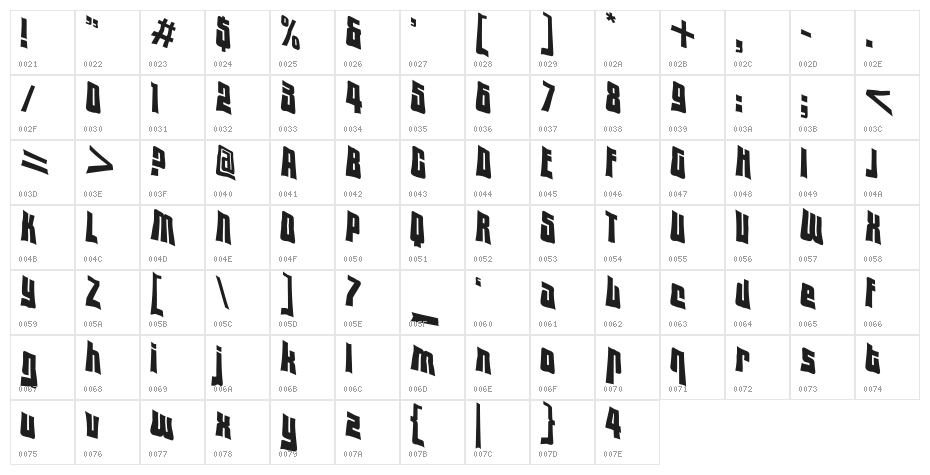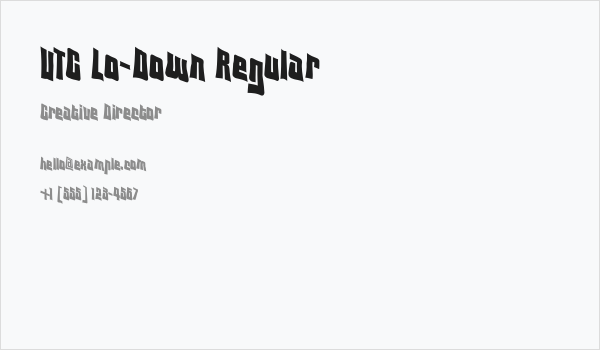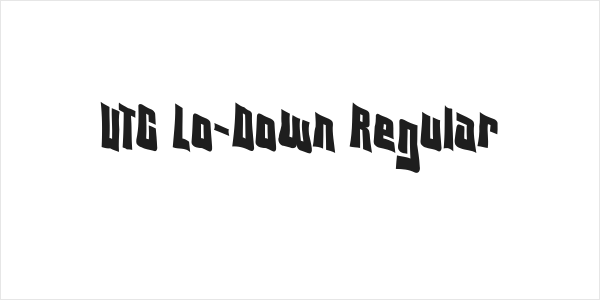
VTC Lo-Down Regular Font
VTC Lo-Down Regular Description
This font features a bold and dynamic design with a strong presence. The characters are heavily stylized with sharp angles and a slightly condensed form, giving them a unique and edgy appearance. The uppercase and lowercase letters maintain a consistent style, with exaggerated serifs and a slightly uneven baseline that adds to the font's distinctive character. The numerals and special characters are equally bold, ensuring uniformity across all glyphs. This font's striking design makes it ideal for projects that require a strong visual impact.
| Proposed Projects | Ideal for posters, album covers, branding, and any project needing a strong visual impact. |